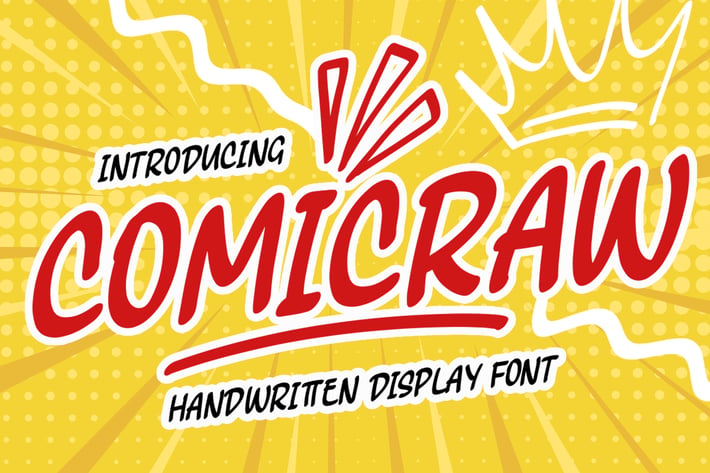
Comicraw Handwritten Display Font
Comicraw handwritten display Font is a unique, modern handwritten font with a unique, elegant, and modern style. It is a display font perfect for headlines, branding projects, logos, social media posts, product packaging, labels, etc.